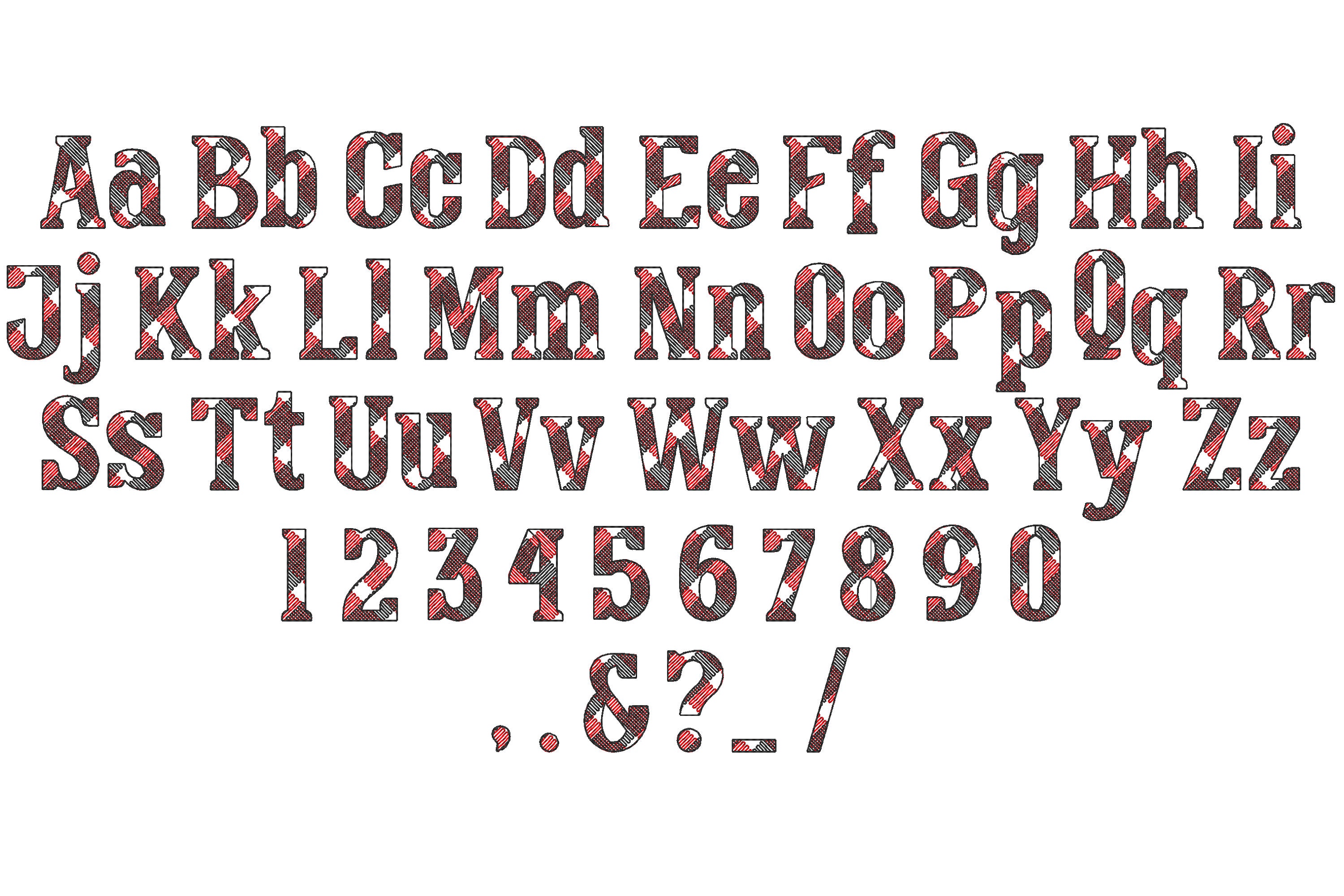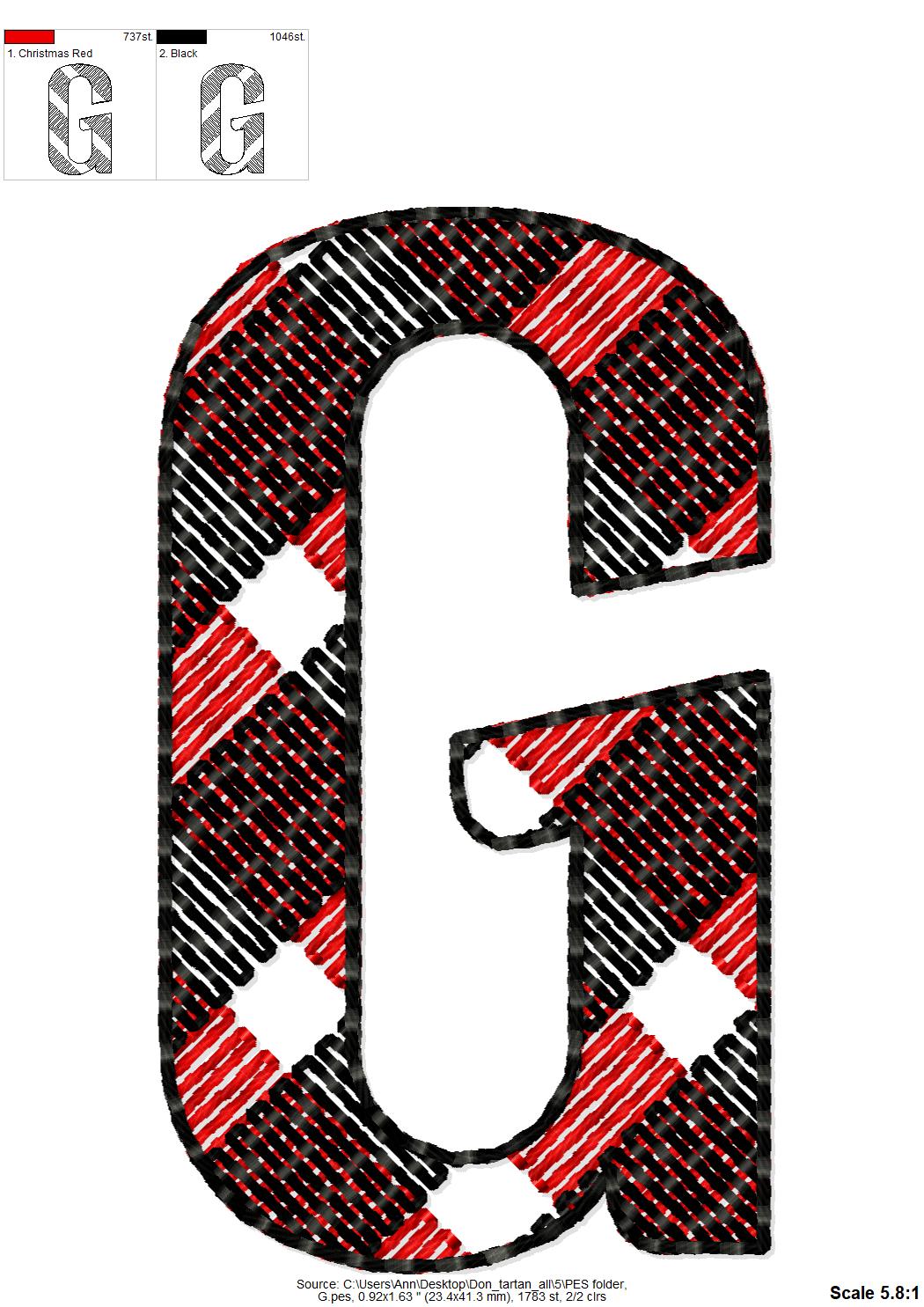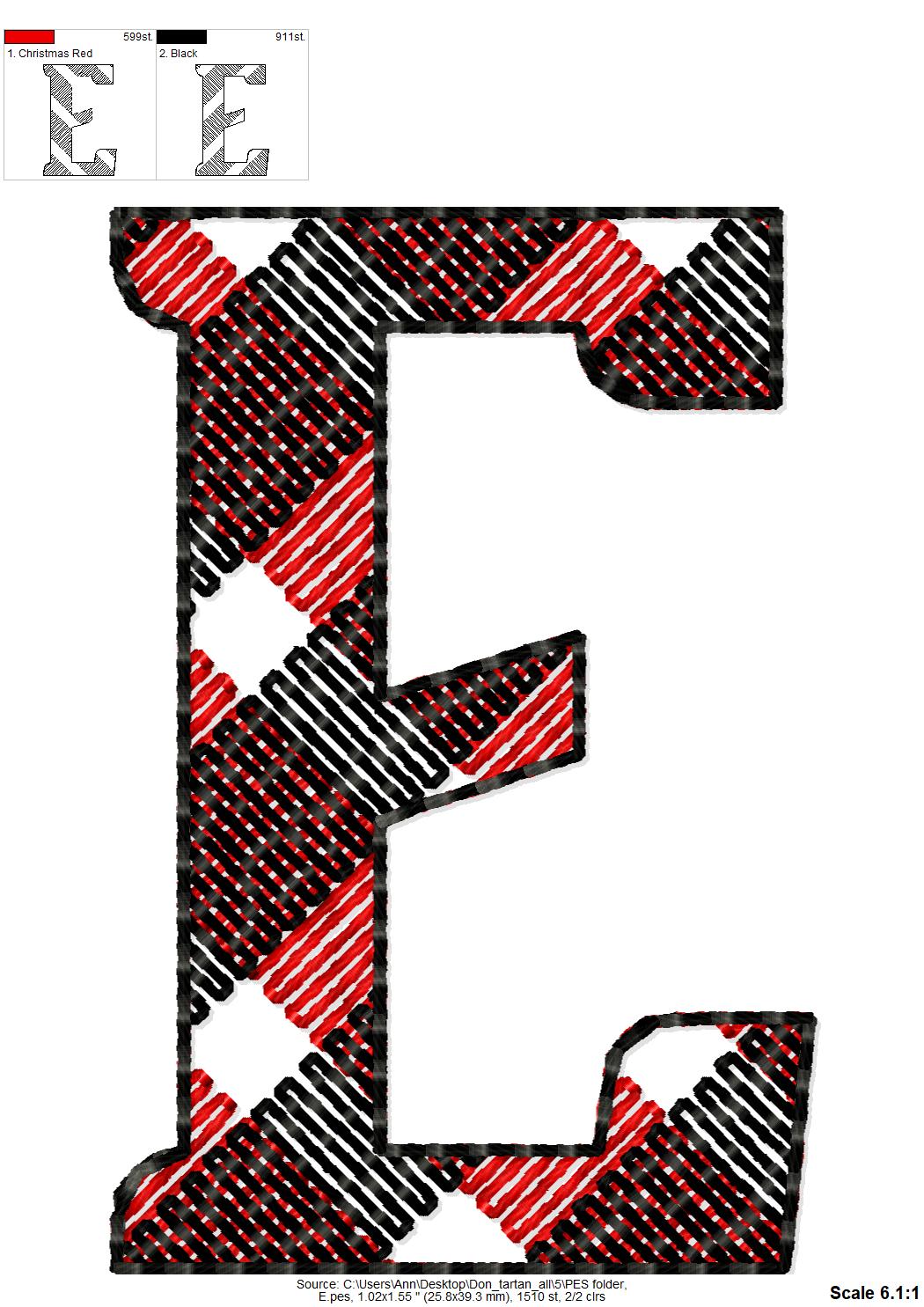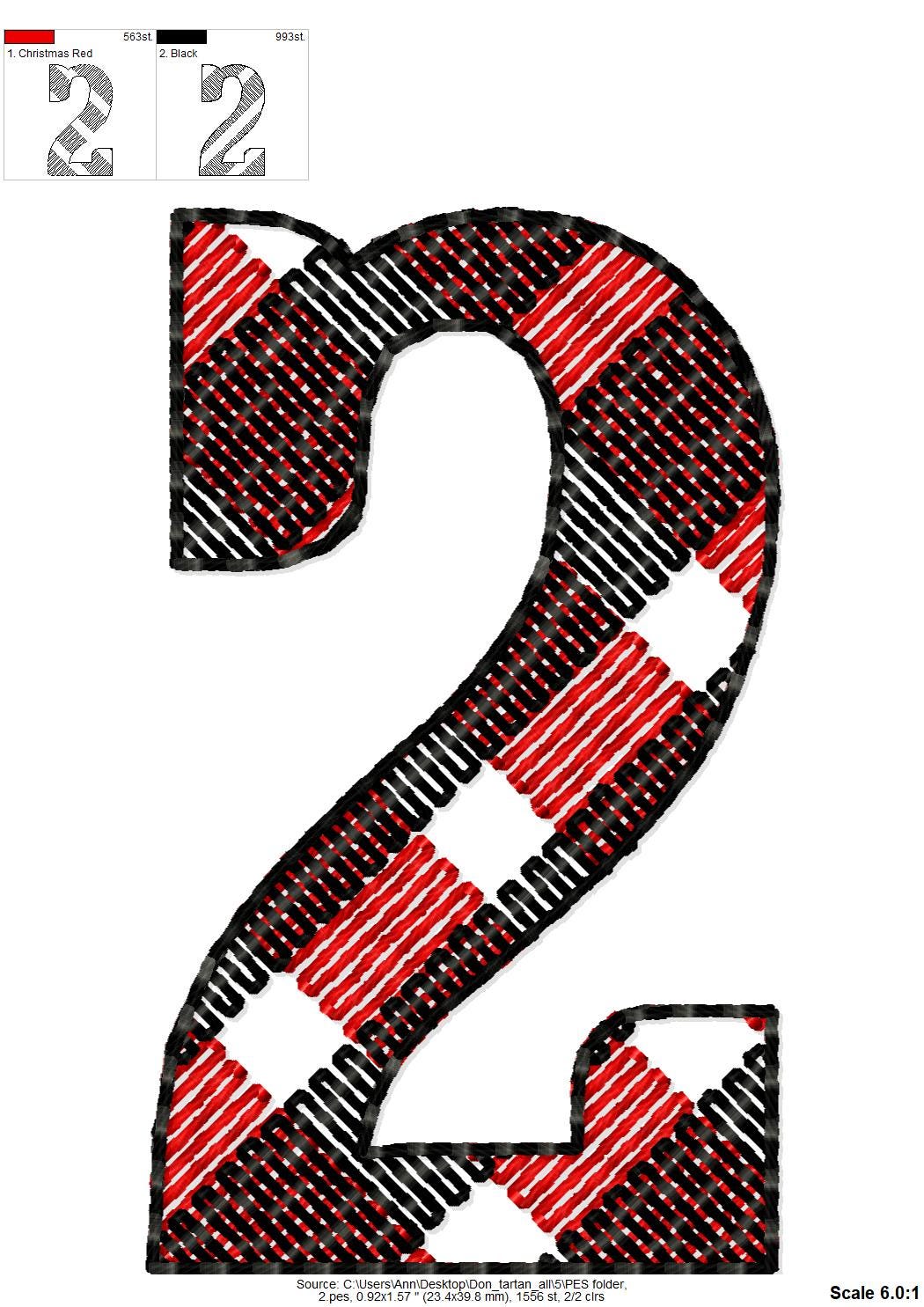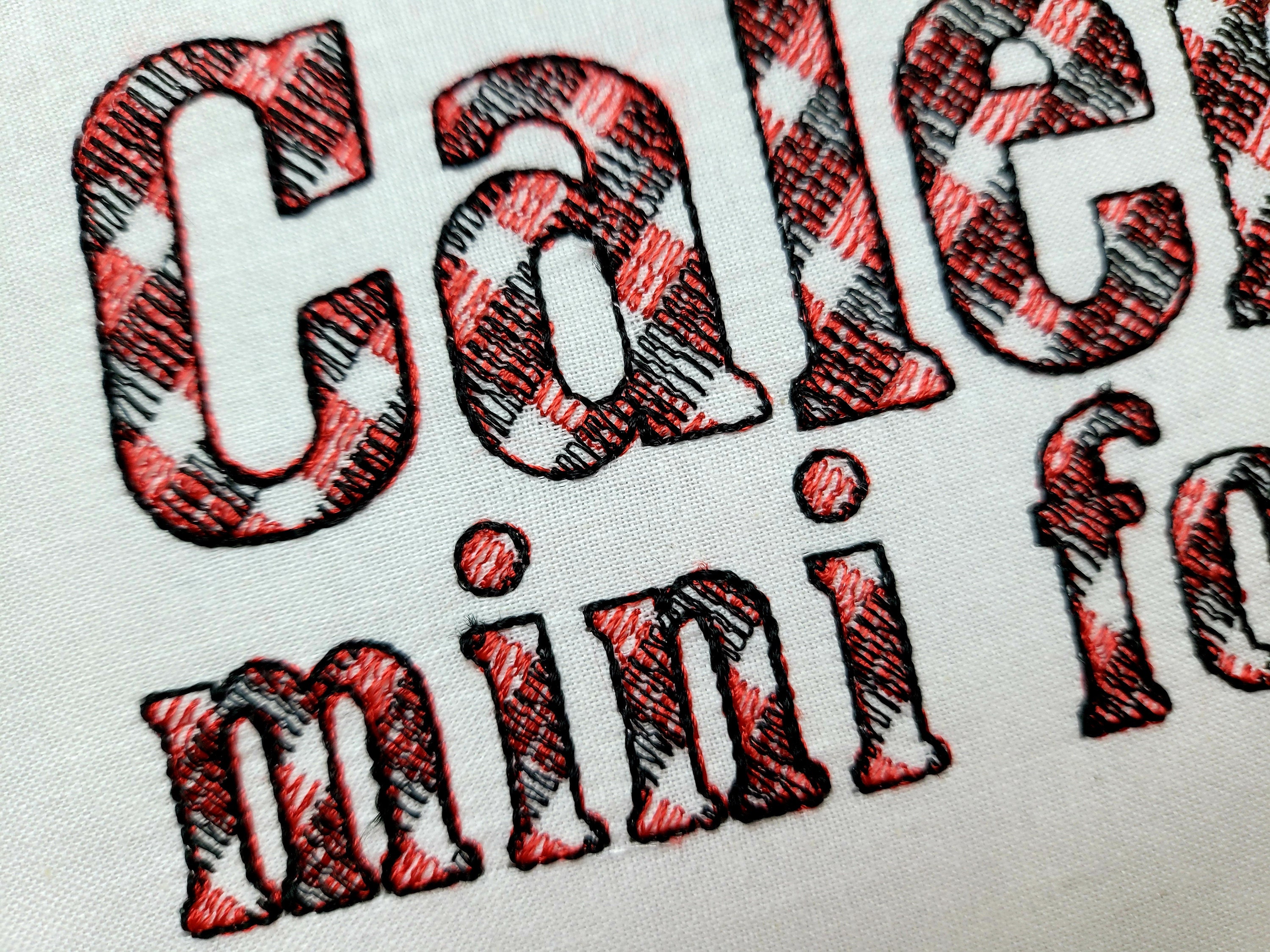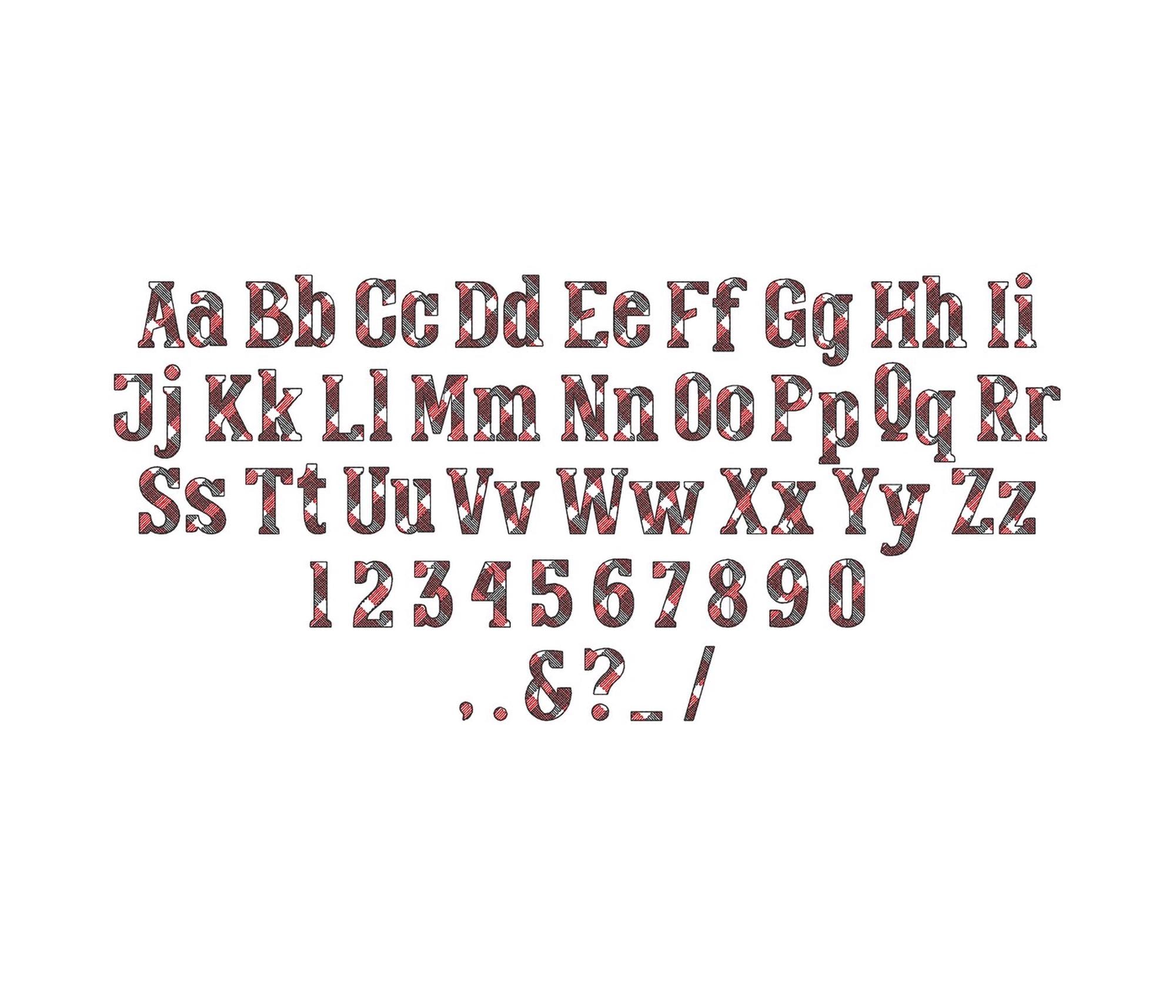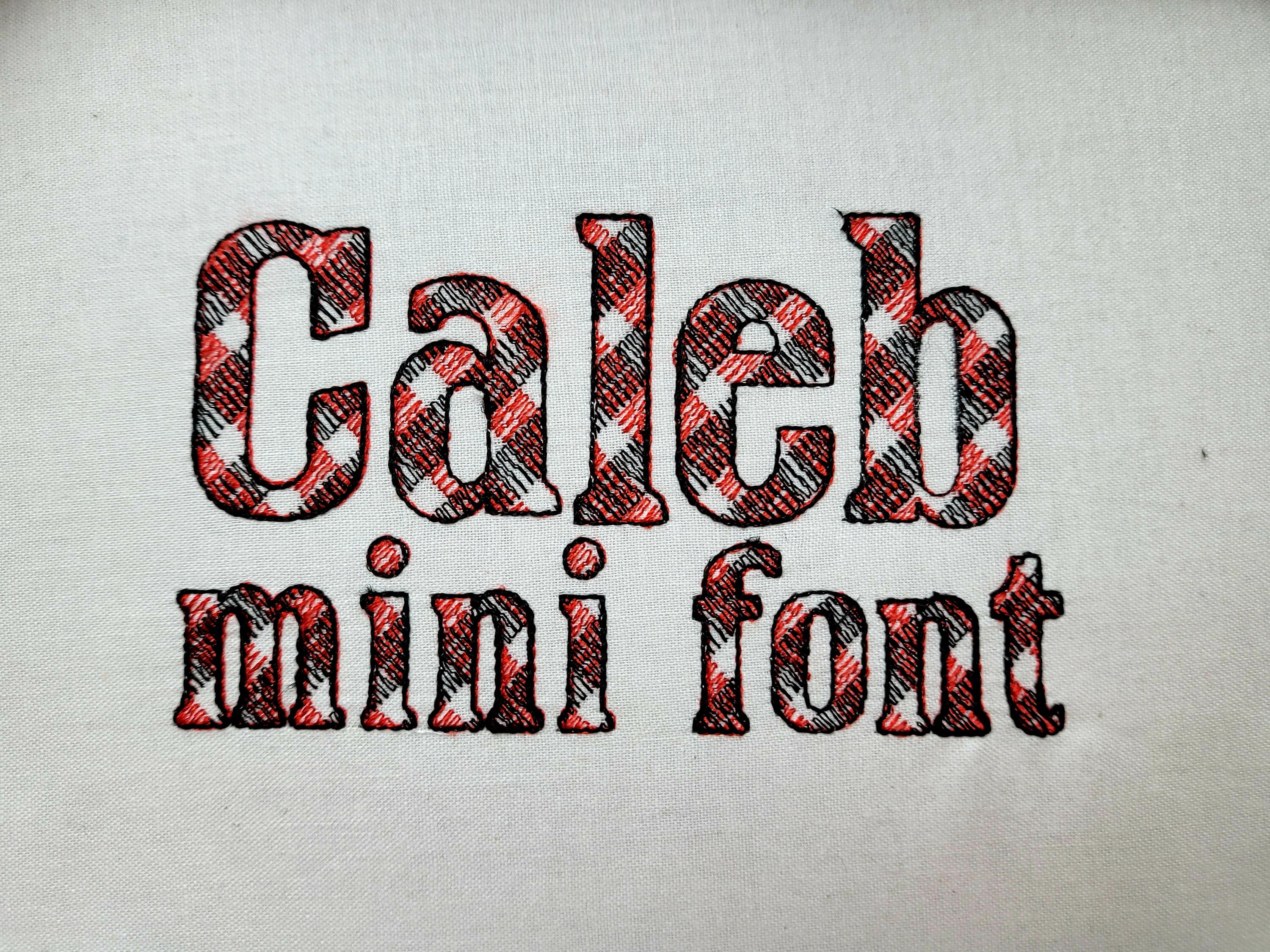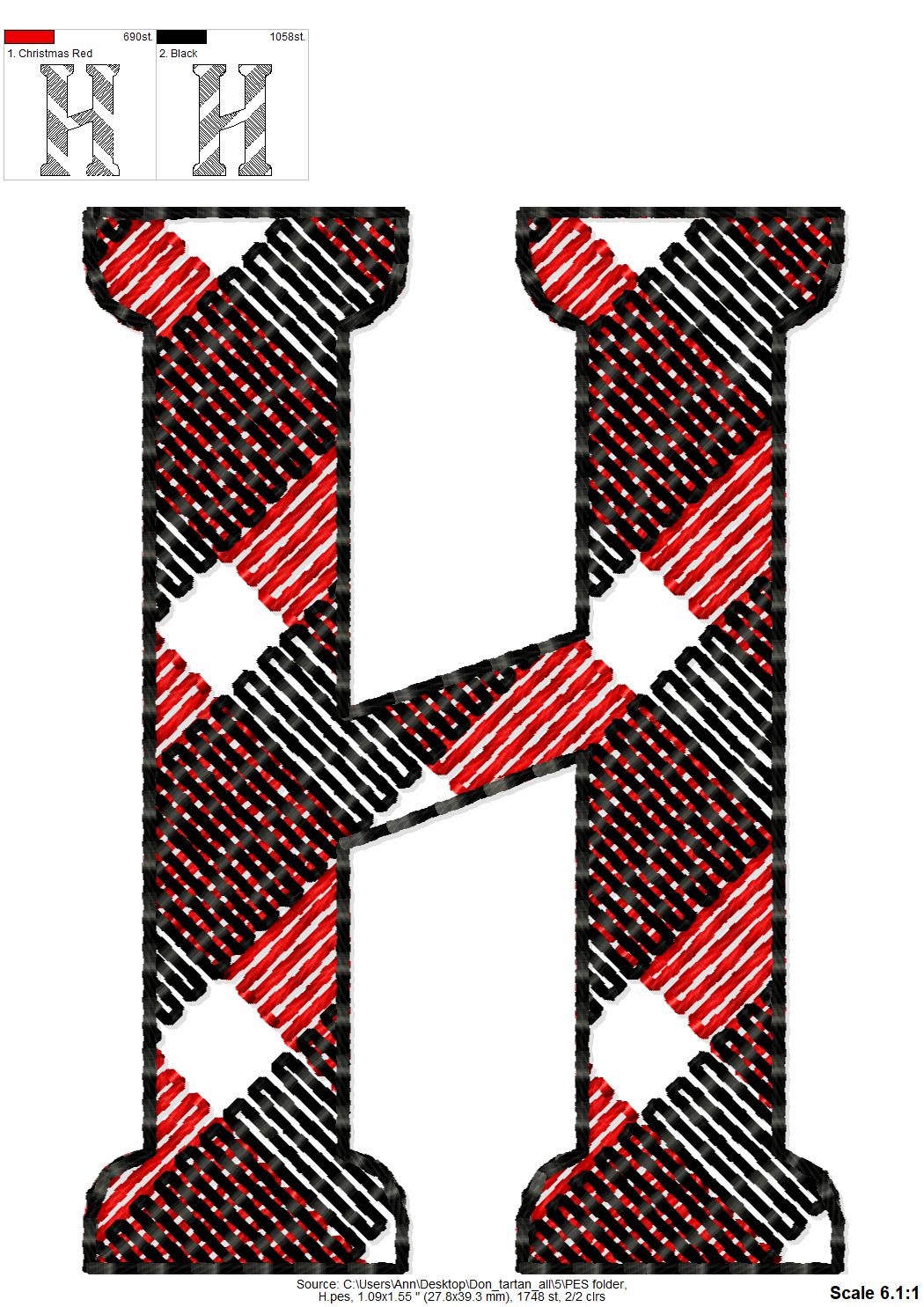
MINI Buffalo plaid Tartan Gingham Font light sketch outline machine embroidery designs alphabet letters 0.8, 1, 1.1, 1.5, 2, 2.5 in
This is quick stitch designs, they look like laces, the background fabric looks through. Stunning effect.
Gingham lines are part of the embroidery.